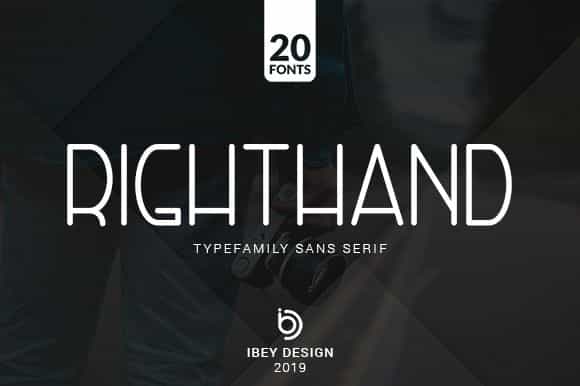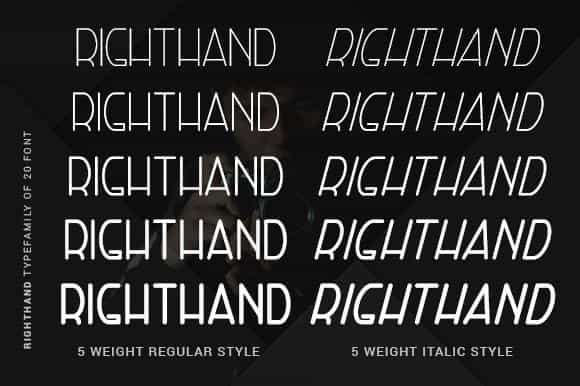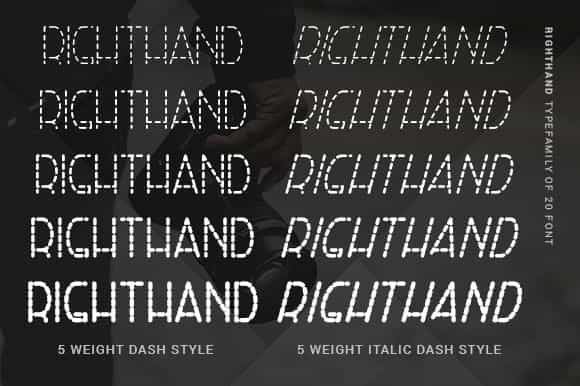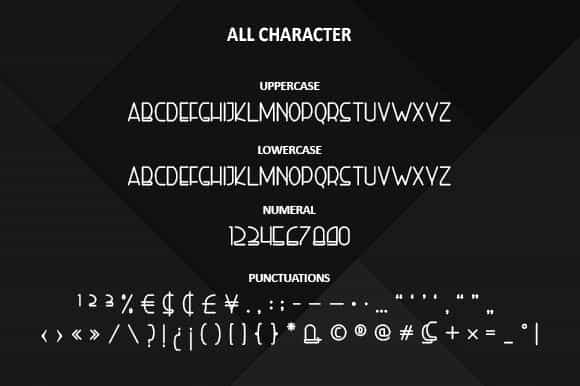
Discover Right Hand Font Family, part of the Sans Serif collection—a versatile and unique font perfect for adding a personal touch to your projects. Download it for free and enjoy crafting designs with style, from invitations to social media posts. This font is available exclusively for personal use, giving you the freedom to create without limits. Unlock your creativity with Right Hand Font Family today!